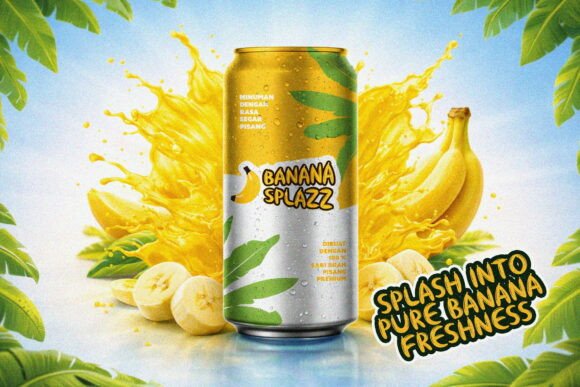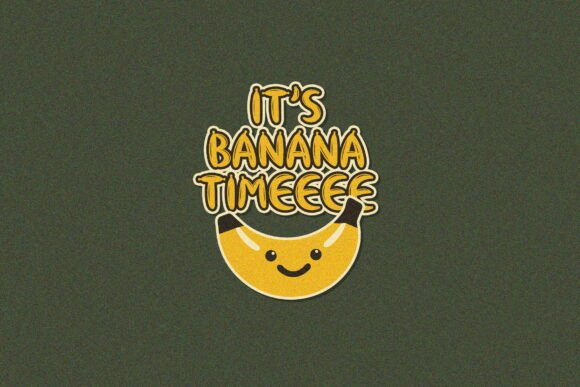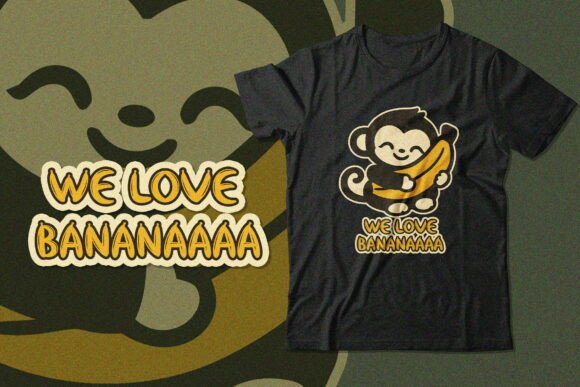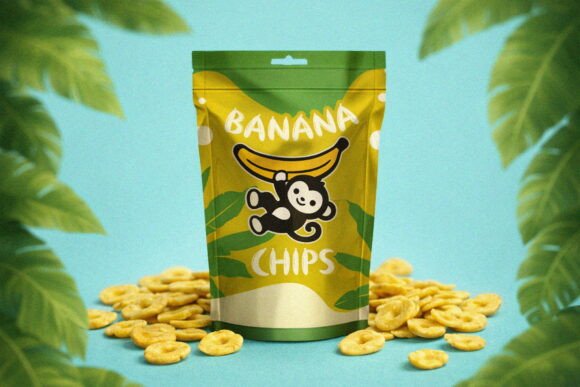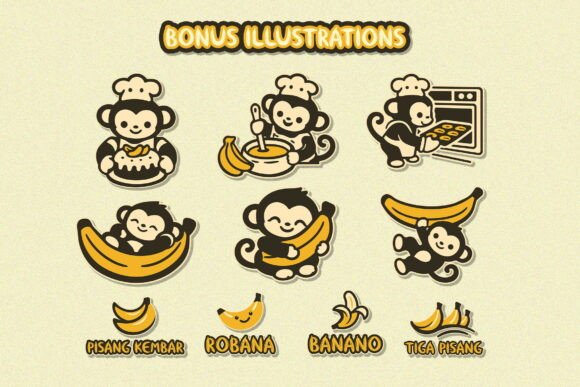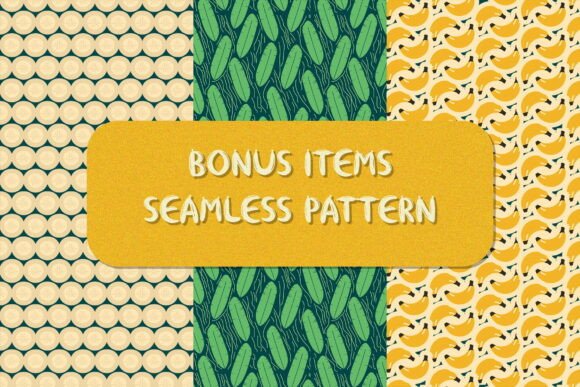
Get Ready to Go Bananas with Your Designs!
Have you ever found yourself stuck in a design rut, searching for the perfect font to give your project that extra oomph? You know, that moment when you’re scrolling through fonts and suddenly, a smile spreads across your face as you stumble upon the perfect match? That’s exactly what happened to us when we discovered the Banacake Font!
This playful tropical banana-themed font is designed to bring a cheerful and eye-catching personality to your designs. With its bold, rounded shapes and fun, fresh vibe, the Banacake Font is perfect for branding, logo design, packaging, and more. Whether you’re working on a kids’ product, a food or beverage brand, or a tropical-themed project, this font is sure to help your work stand out from the crowd.
Banacake Font Key Features
- Unique Characteristics: Banacake font features a playful and whimsical design, with intricate details and curves that set it apart from other fonts.
Banacake Font Review
Overall, I think Banacake Font is a cute and quirky addition to any design project. Here are some things that work well: ✨
- Creativity and uniqueness: Banacake Font has a fun, playful vibe that’s perfect for projects that need a bit of whimsy.
- Legibility: Despite its quirky feel, Banacake Font is still quite readable, especially in larger sizes.
- Customizability: Banacake Font comes in a range of weights and styles, making it easy to adapt to different design needs.
However, there are some limitations to keep in mind: ⚠️
- Limited language support: Banacake Font may not be the best choice for projects that require a wide range of languages, as it may not support certain characters or glyphs.
- Not ideal for small sizes: While Banacake Font is readable in larger sizes, it can become quite pixelated and difficult to read in smaller sizes.
Overall, I think Banacake Font is a great choice for projects that need a bit of personality and flair. Just be sure to use it wisely and consider its limitations when making your design decisions.
Tips for Getting the Most Out of Banacake Font
For best results, use Banacake Font in conjunction with bold or italic styles to add emphasis to your text.
Experiment with different font sizes and styles to create a visually appealing design.
Banacake Font is ideal for:
Children’s book covers and illustrations
Food and dessert branding
Whimsical and playful designs
Alternatives to Banacake Font
Great Vibes is a modern, cursive script font that is perfect for creating a friendly and approachable atmosphere. It is ideal for use in branding, packaging, and advertising materials where a touch of personality is needed. Great Vibes has a similar feel to Banacake Font, but with a more relaxed and casual tone.
Comparison to Banacake Font: Great Vibes is more cursive and less whimsical than Banacake Font. It has a softer, more elegant feel that is suitable for a wider range of design applications.
Pacifico is a beautiful, elegant script font that is inspired by the Pacific coast of Mexico. It is perfect for use in branding, advertising, and editorial materials where a touch of sophistication is needed. Pacifico has a similar elegance to Banacake Font, but with a more refined and polished feel.